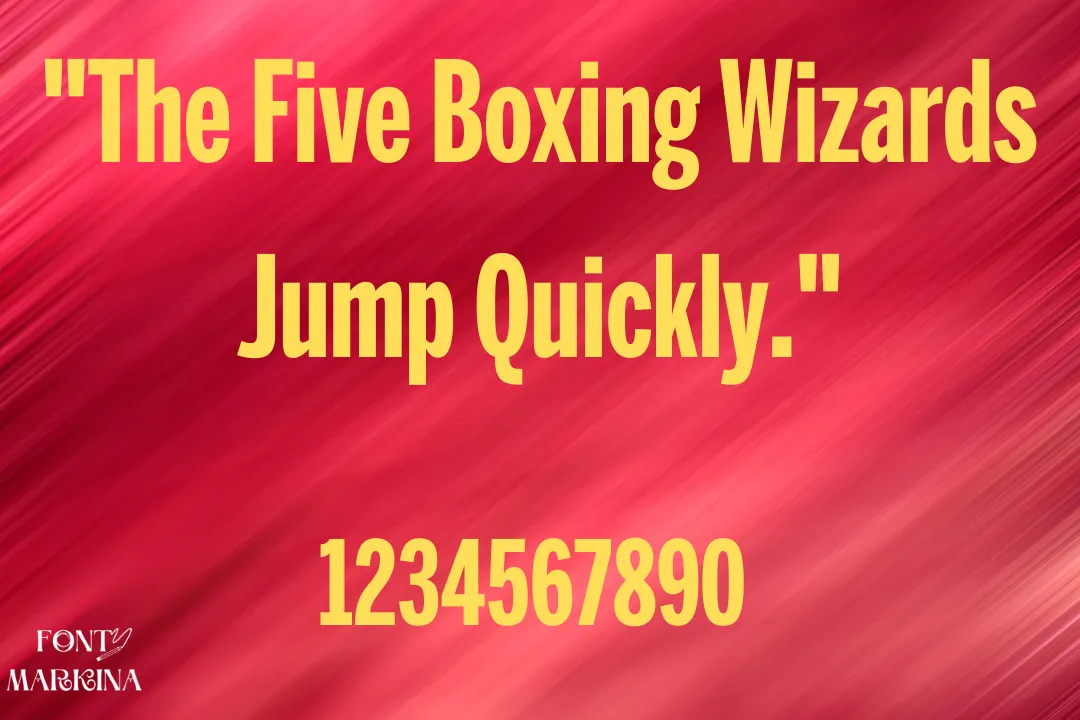
Benton Sans Font
Benton Sans Font has clean textures that make it easily readable and understood. It comes from the digital type Sans Serif family. In 1995 this family was released by reputable designer Tobias Frere-Jones.
The most classic feature of this family is that it includes 7 attractive styles. Some famous styles are regular, bold, thin, light, and others. Because of its styles, this family becomes popular all over the world. Similar fonts to this family are the klein font and nimbus sans font which have outstanding features.
For better graphic designs, this typeface implements two unique widths. It is best for your Adobe program. You can search for it on google. This family comes in TTF and OTF formats. Also, use its generator tool which has different effects on graphic designs.
Uses of Benton Sans Font
Because of its wide range of advanced characters and styles this family is becoming popular day after day. For book covers, comic covers, and certificates, this typeface is very useful. It is very beneficial for use in offices and business projects.
In the clothes designs industry, this family is used for making t-shirts, hats, and much more. In order to achieve its more classic uses, simply make the pairing of open sans condensed font with  Benton Sans Font.
After a combination of these two typefaces, you can enjoy its fascinating results. You can also use this family for different types of photo editing and video editing. Its uses are soo advanced.
What is the closest font to Benton Sans?
There are different fonts similar to this family but the Nike font and Effra Bold font are the much closest to this font family.